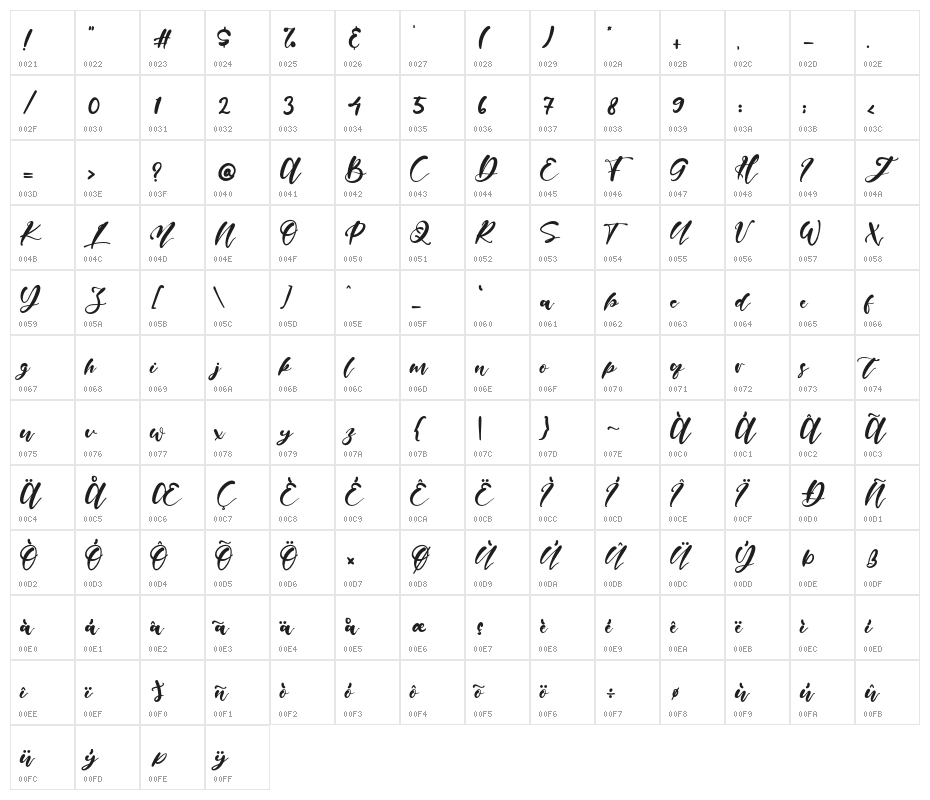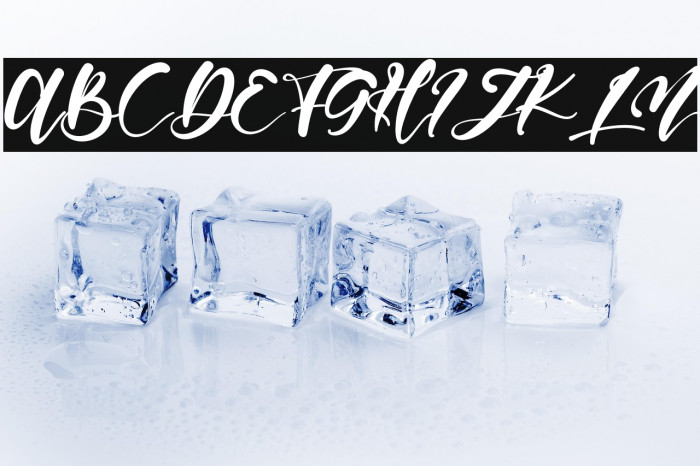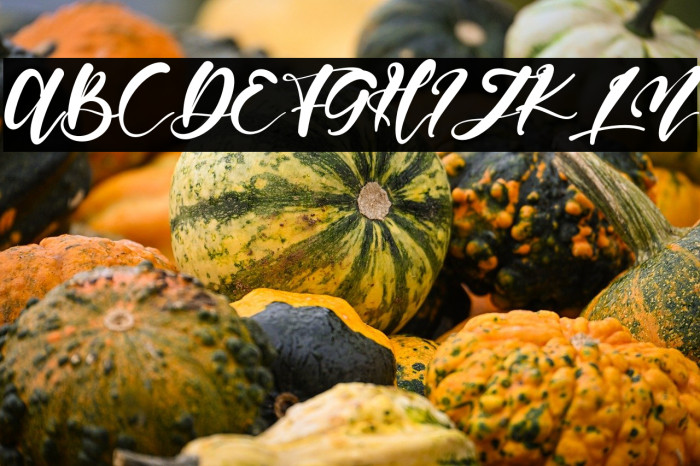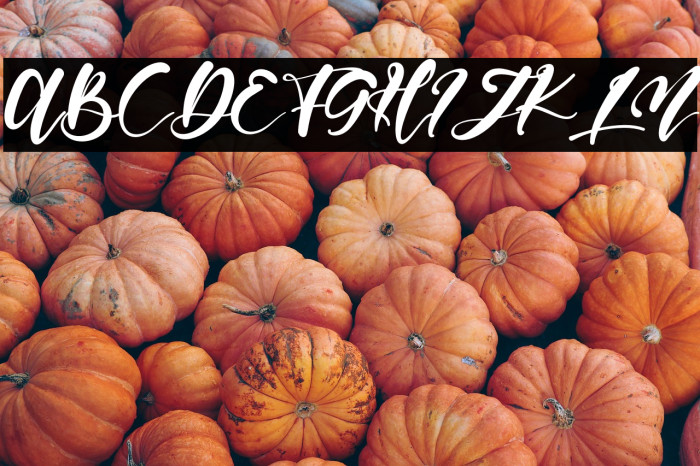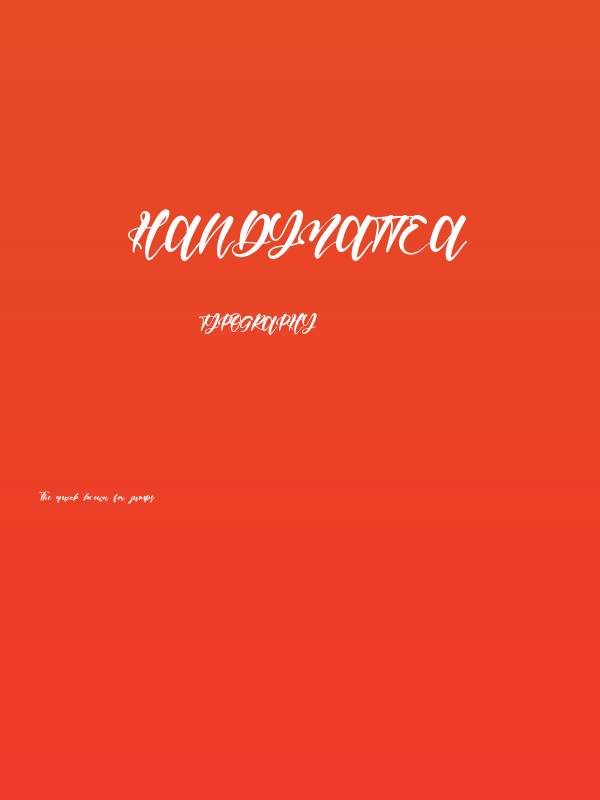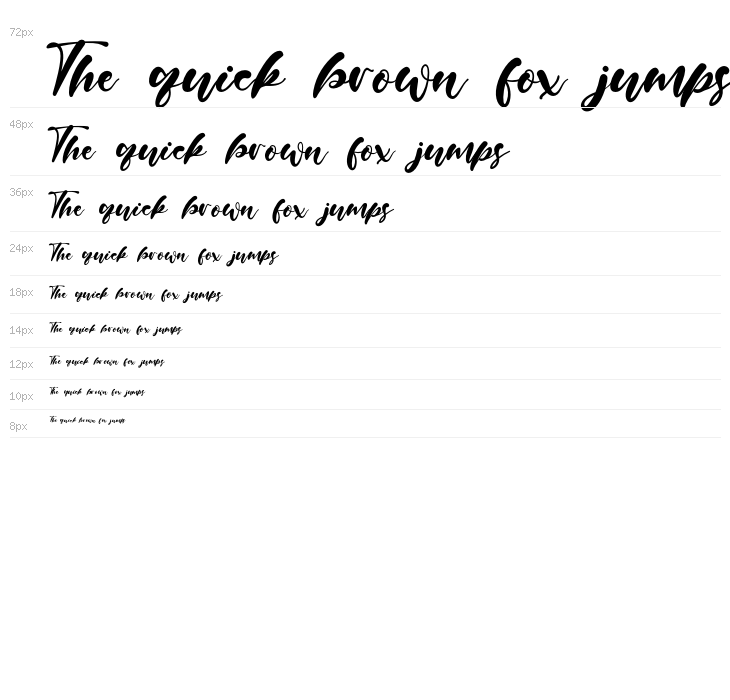
HandyMattea Font
HandyMattea Description
This font exudes a lively and expressive character with its bold, flowing script style. The letters are interconnected, creating a sense of movement and fluidity. The uppercase letters are particularly ornate, with dramatic flourishes and loops that add a touch of elegance. The lowercase letters maintain a consistent style, with rounded forms and smooth transitions. Numbers and special characters are crafted with the same attention to detail, ensuring a cohesive look across all elements. The overall appearance is both artistic and approachable, making it suitable for a variety of creative applications.
| Use Case | Logos, Headlines, Invitations |
| Proposed Projects | Ideal for wedding invitations, greeting cards, branding projects, and artistic posters. |